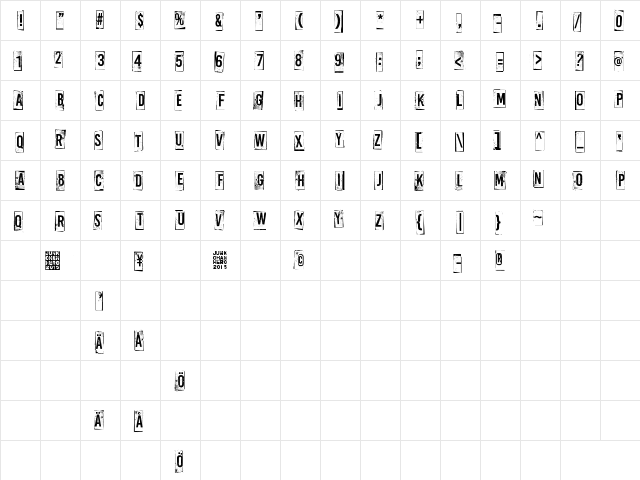
A Box For 3 Regular
Design Context for A Box For 3 Typeface
A Box For 3 is a composed and adaptable typeface that performs quietly and consistently across a wide range of design contexts.